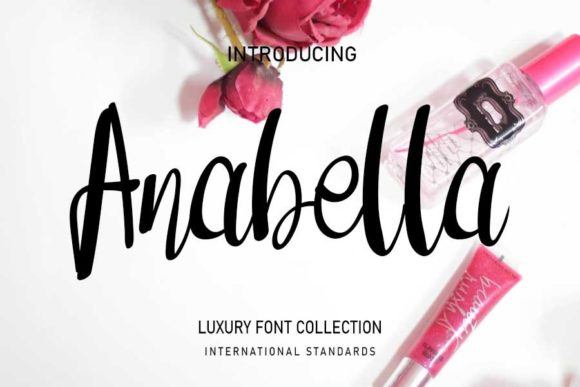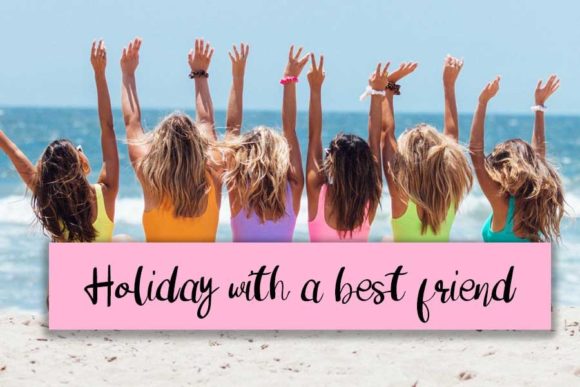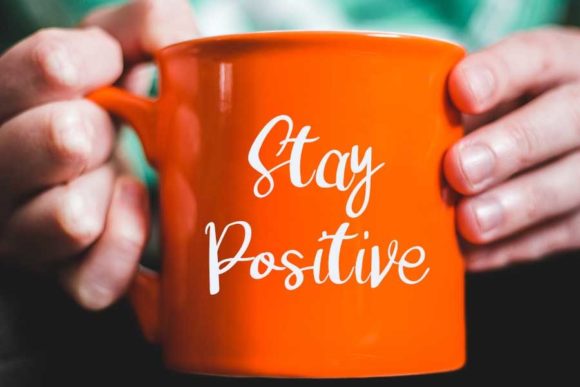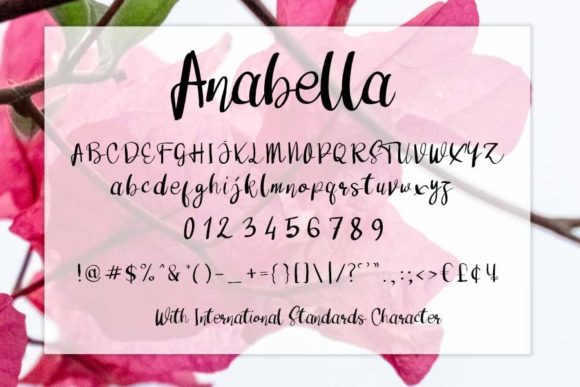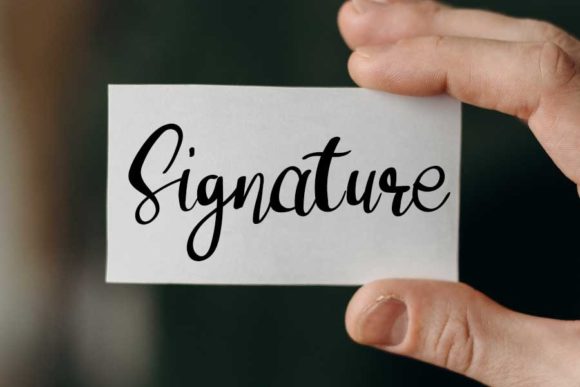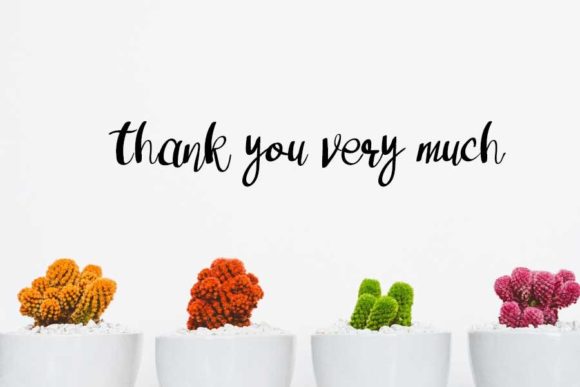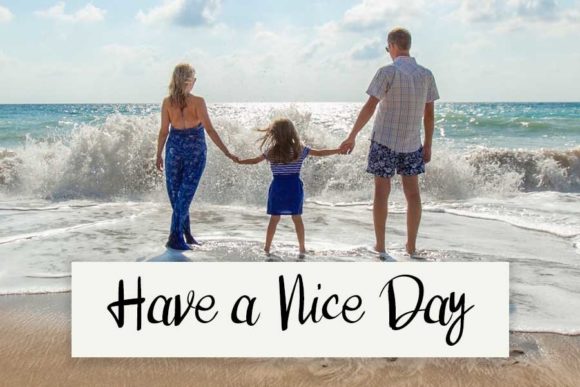
Anabella Font
About Anabella Font
Anabella is a chic, refined script font that emanates sophistication and elegance. Its stylish alternates and ligatures make this font the perfect match for any project.